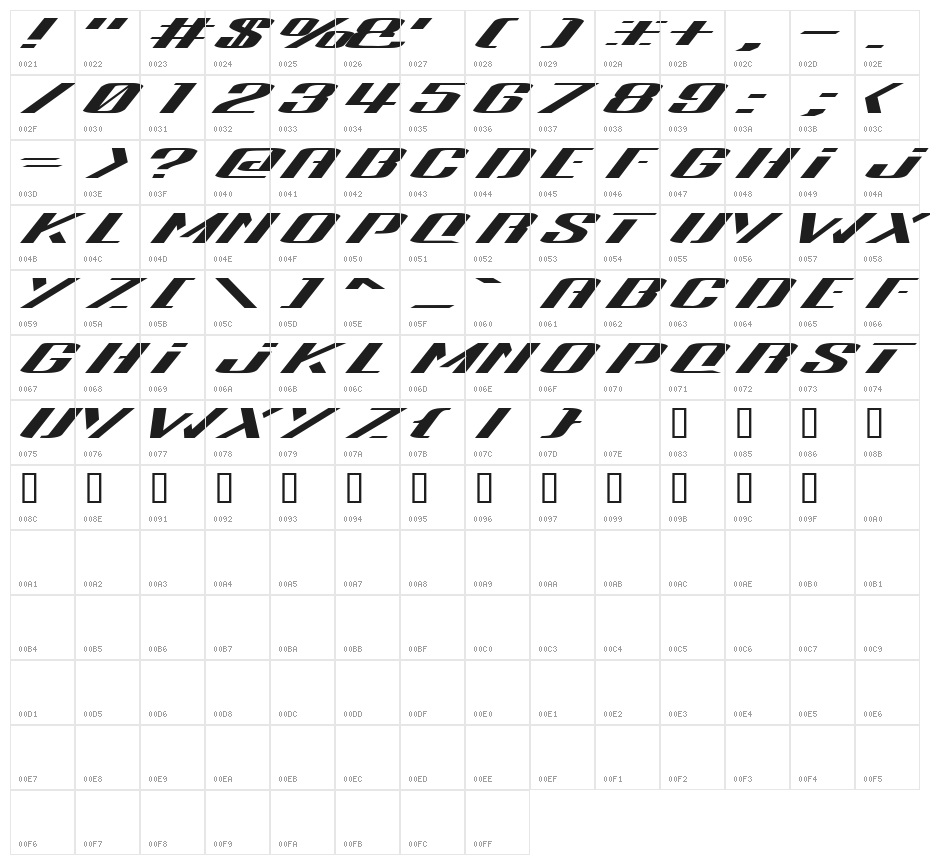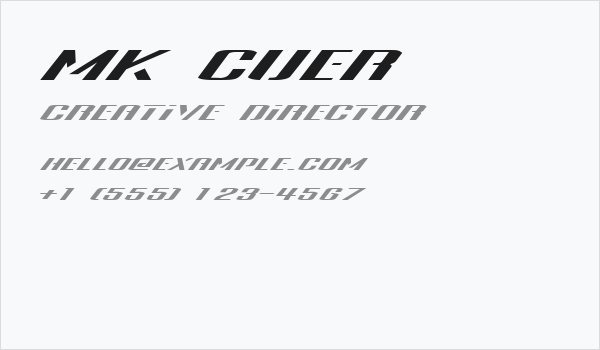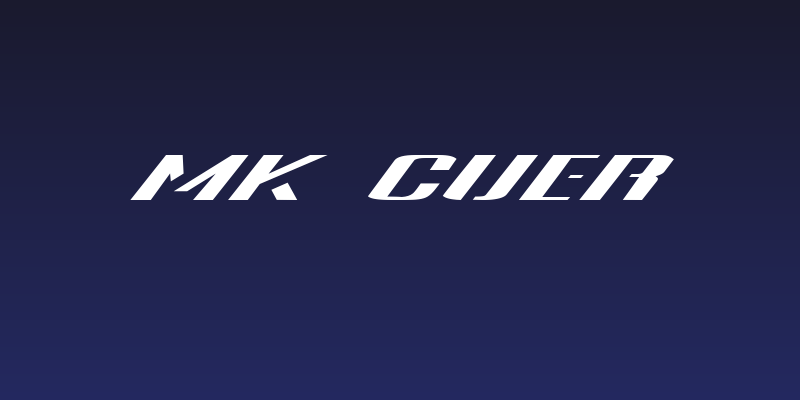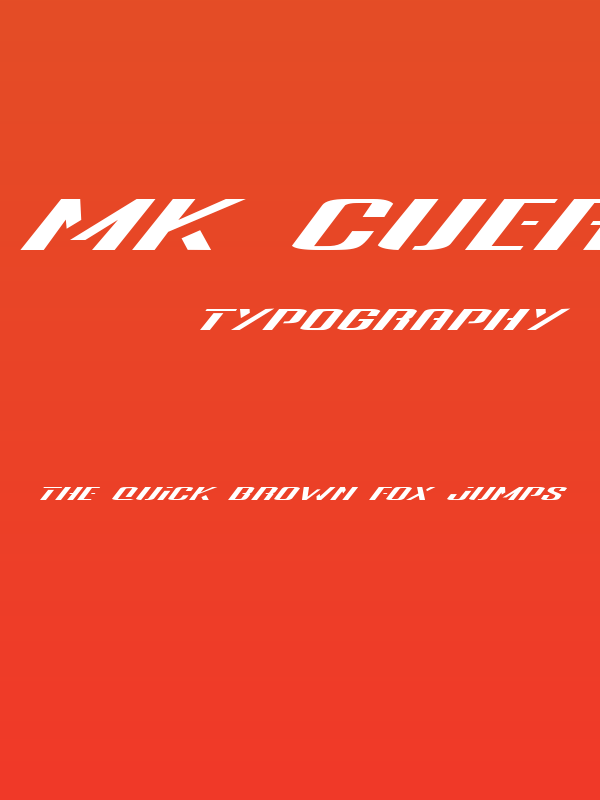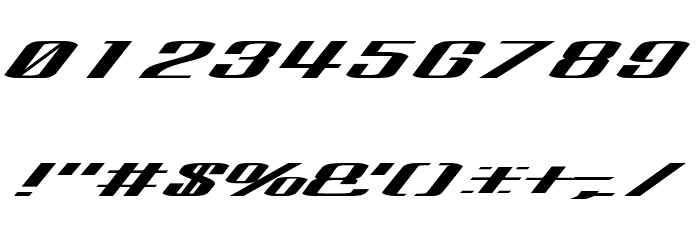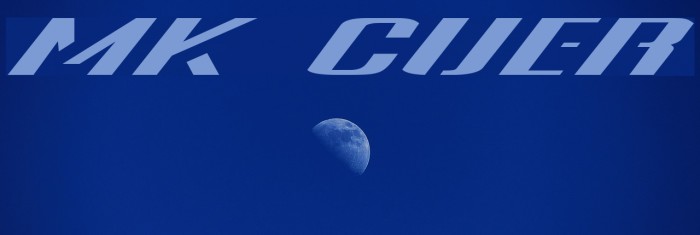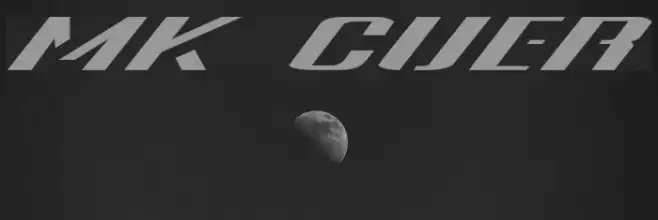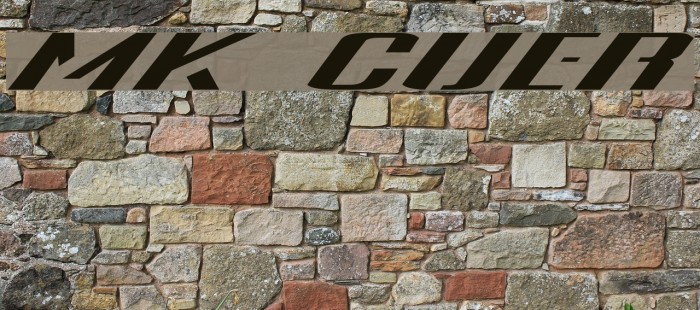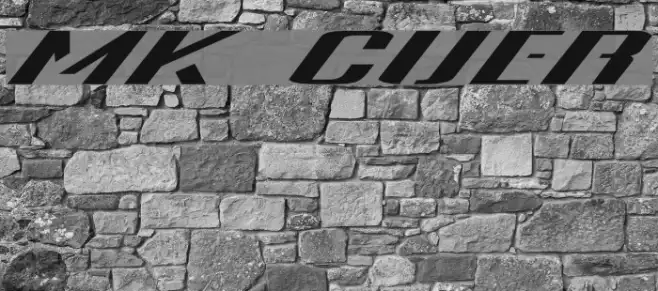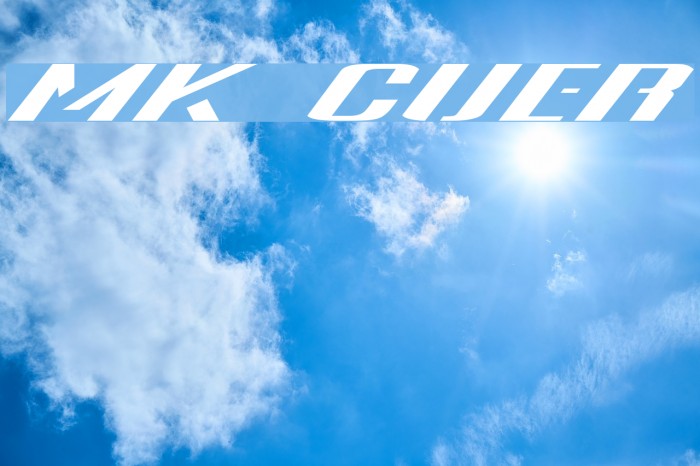
MK Cuer Font
MK Cuer Description
This font features a bold, italicized style with a strong, dynamic presence. The characters are sharply angled, giving a sense of motion and speed. The uppercase letters are particularly striking, with a futuristic and edgy appearance. The lowercase letters maintain the same angular design, ensuring consistency throughout. Numbers and special characters are designed to match the bold and slanted style, making them stand out. This font is ideal for projects that require a modern and energetic look, such as sports branding or technology-related designs.
| Proposed Projects | Ideal for sports branding, technology logos, and dynamic advertising campaigns. |